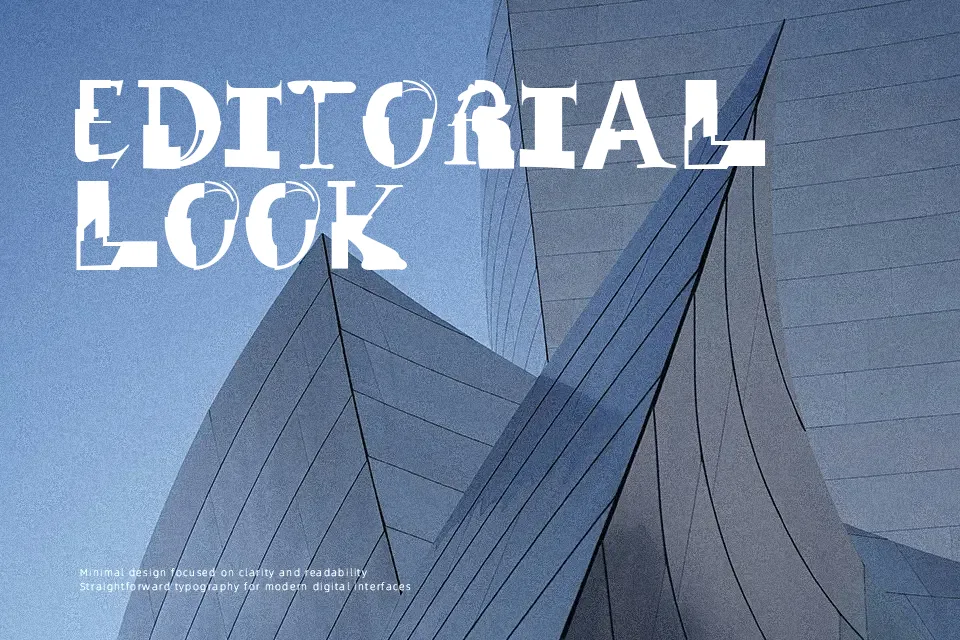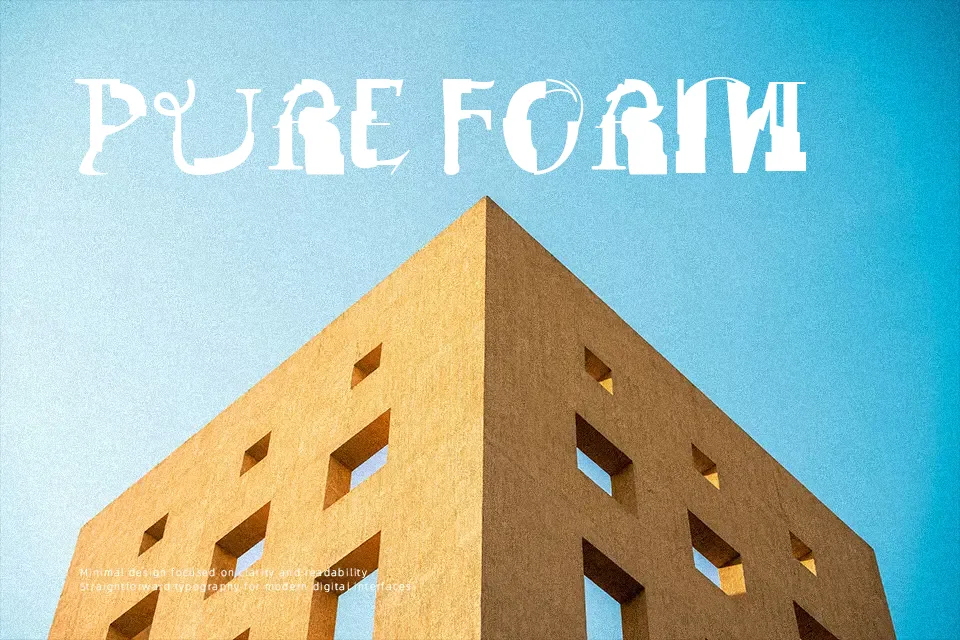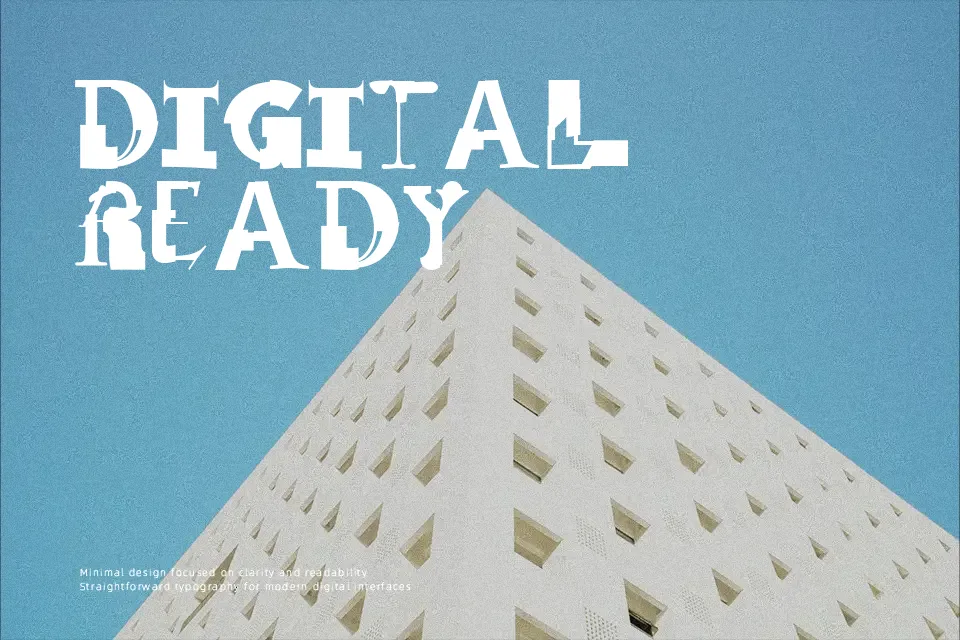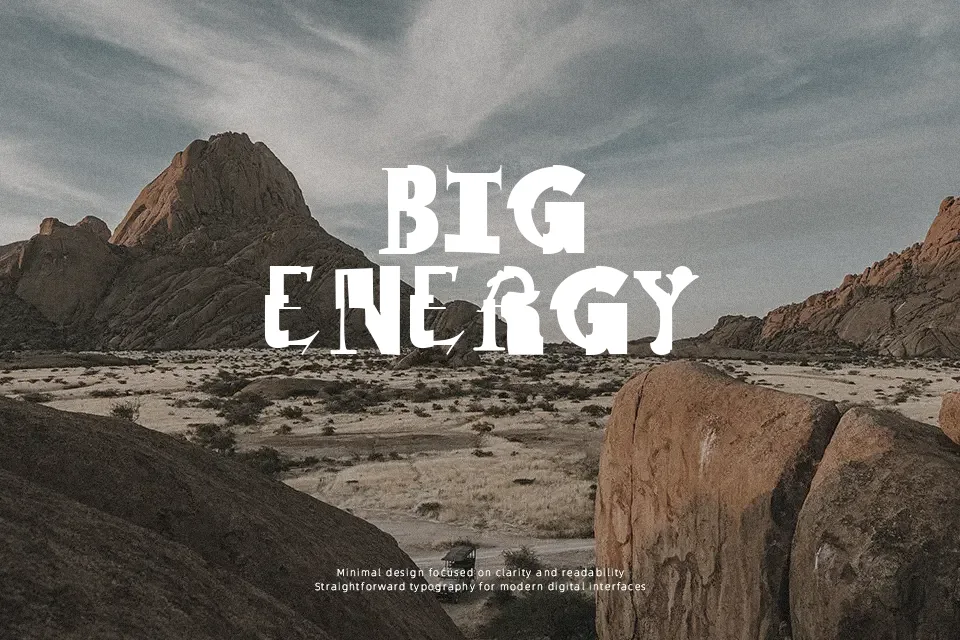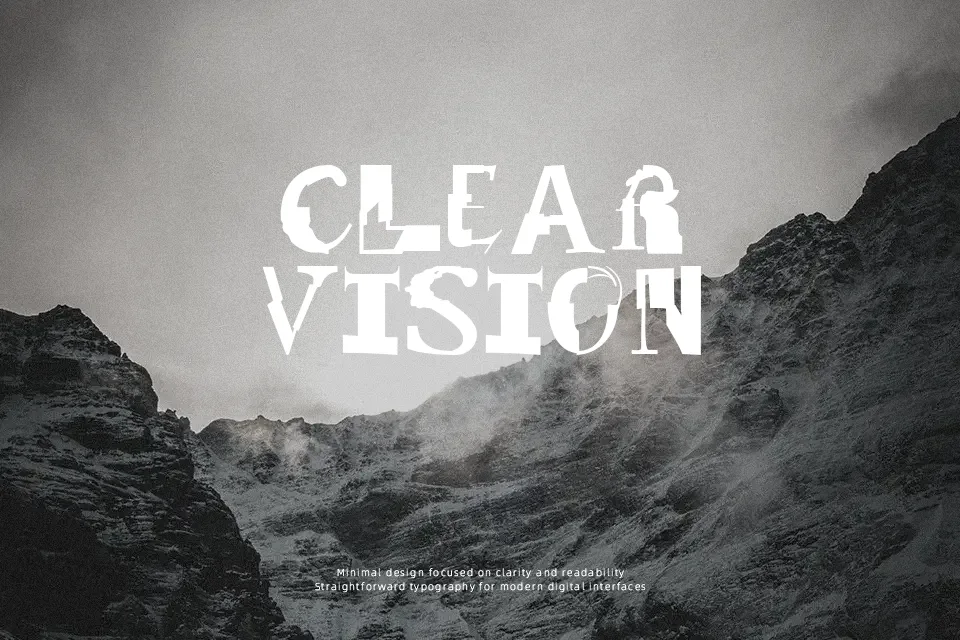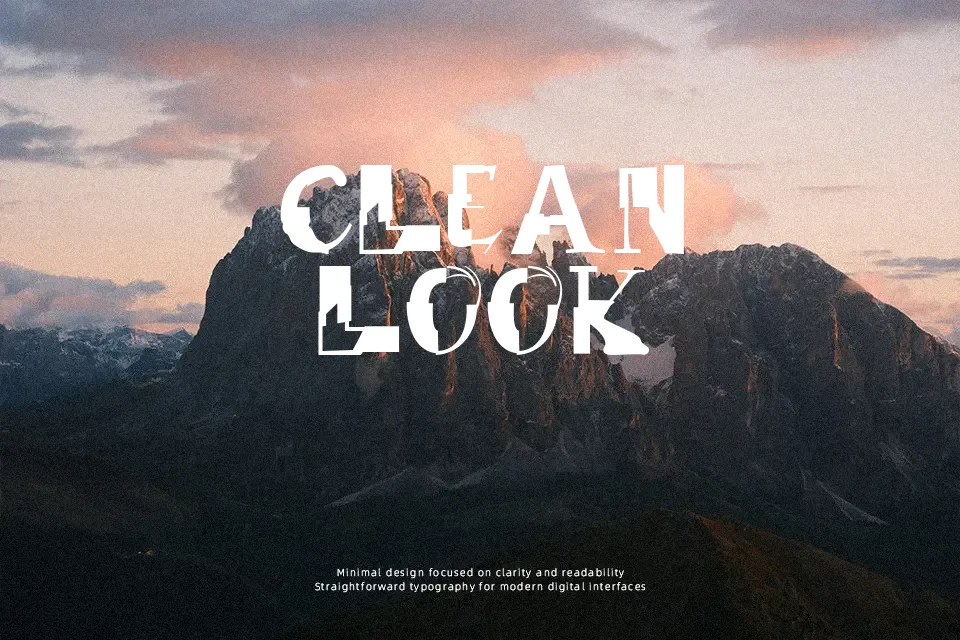
Remix Font
Designed by JLH Fonts
Remix Font stands out with its heavily distressed structure and chaotic stroke outlines. The letterforms display erratic weight distribution and rough edges, creating a highly textured and dynamic appearance across the entire character set. Its aggressive visual rhythm and unbalanced proportions perform exceptionally well when applied to large headlines or dramatic poster designs. The raw detailing ensures maximum impact for grunge-inspired artistic projects. However, the heavy distortion significantly impacts clarity, making this typeface unsuitable for continuous reading or smaller interface elements. The irregular spacing and complex outlines naturally reduce legibility in dense layouts, meaning the design requires ample negative space to maintain its striking aesthetic.
grunge music posters
edgy streetwear apparel
dramatic event headlines
dense paragraph reading
corporate document layouts
Perfect for headline, music, and packaging, with a dynamic and decorative style.